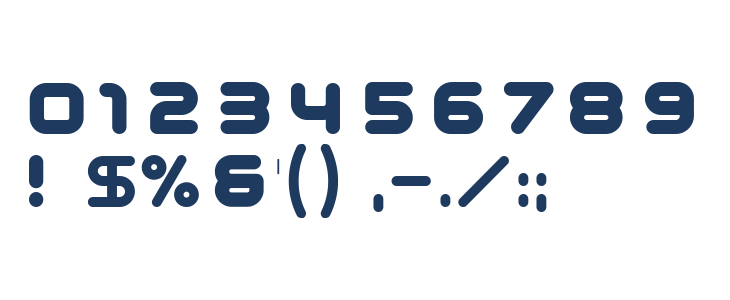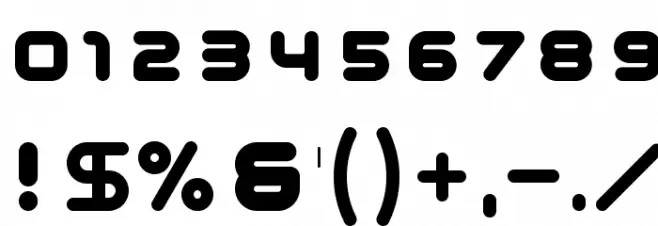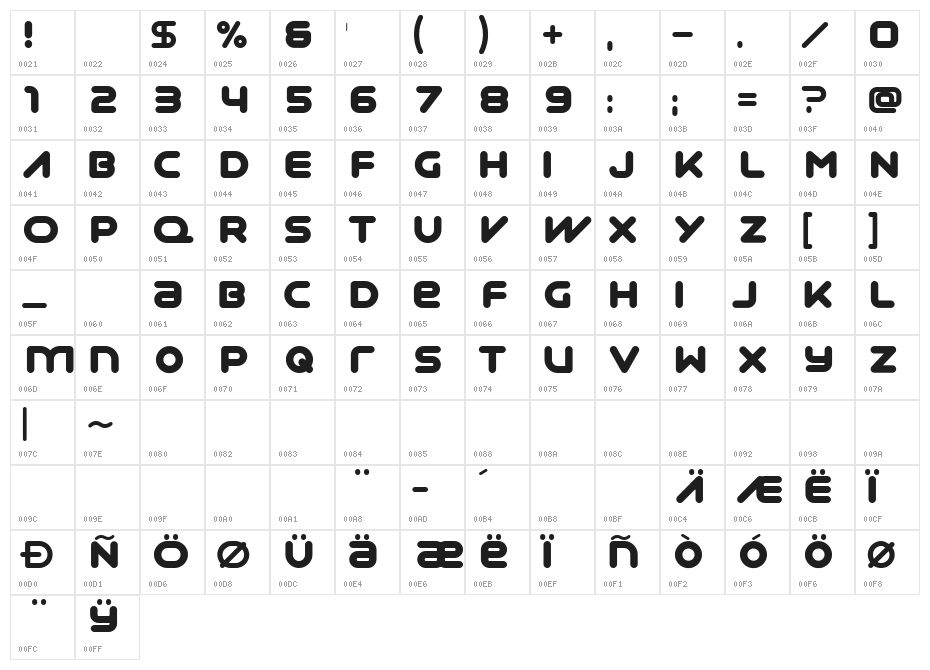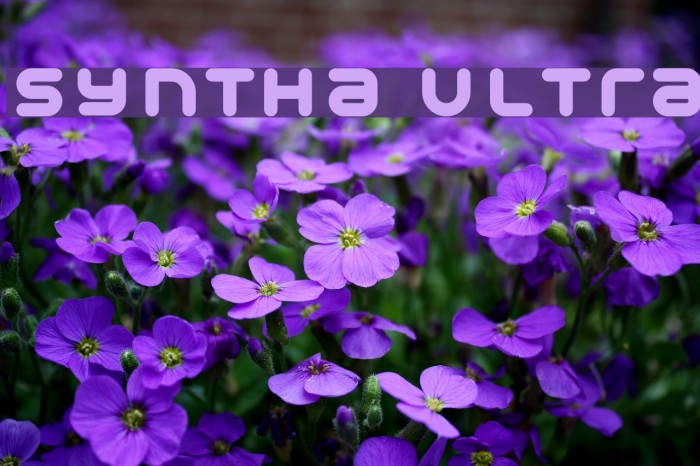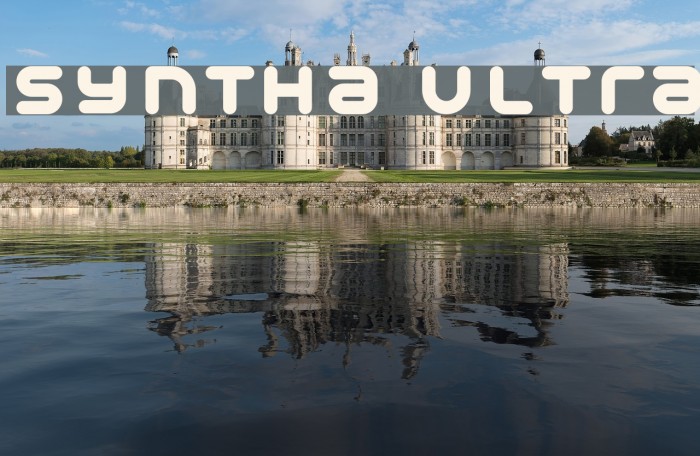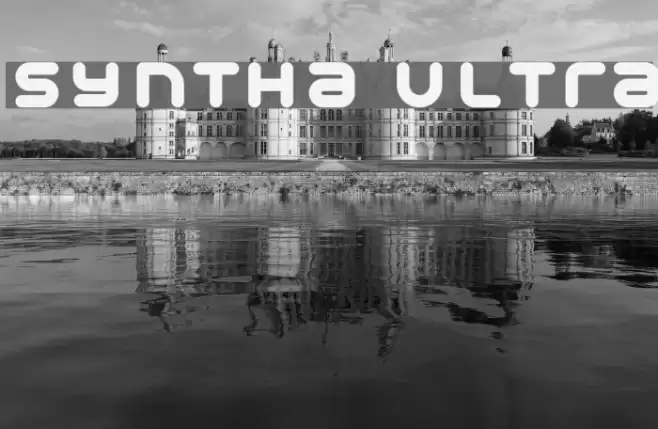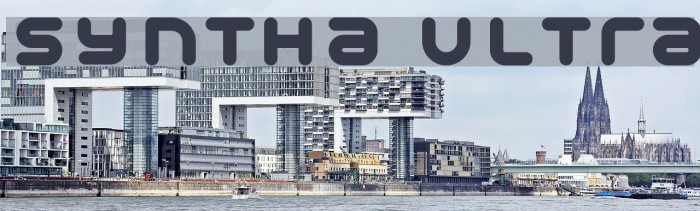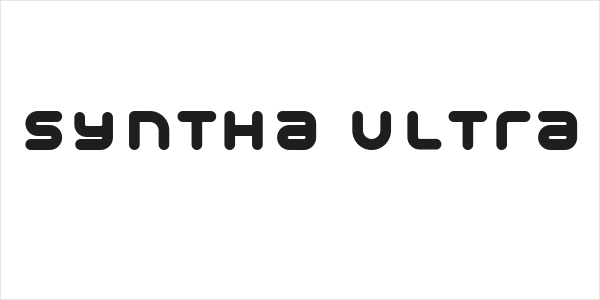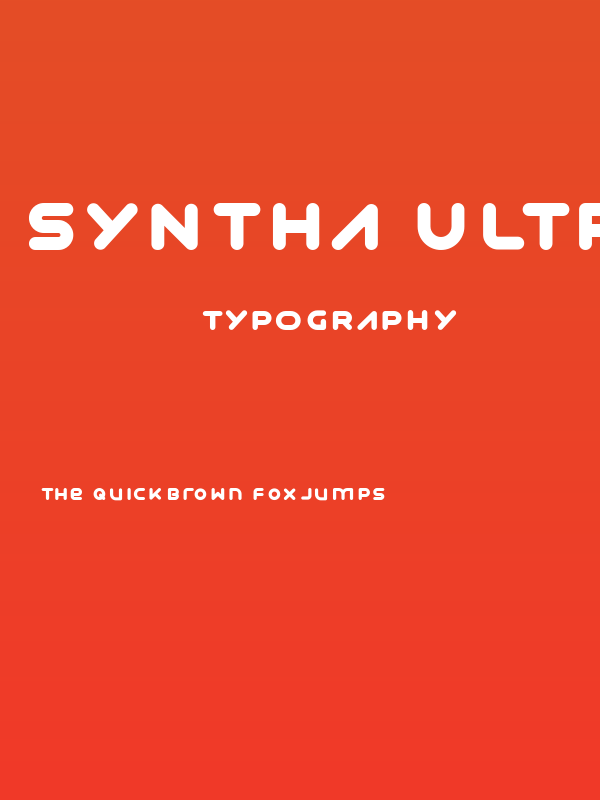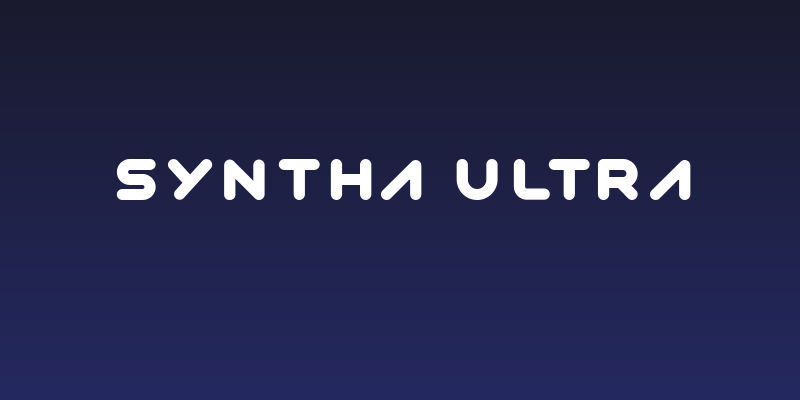
Syntha Ultra Font
Syntha Ultra Description
This font features a futuristic and geometric design, characterized by its bold and rounded letterforms. The characters have a consistent stroke width, giving them a uniform appearance. The uppercase and lowercase letters maintain a similar style, with smooth curves and a modern aesthetic. The numerals and special characters follow the same design principles, ensuring cohesion across all glyphs. The font's style is both sleek and functional, making it suitable for a variety of digital and print applications.
| Proposed Projects | Ideal for technology branding, sci-fi themed projects, video game interfaces, and modern advertising campaigns. |